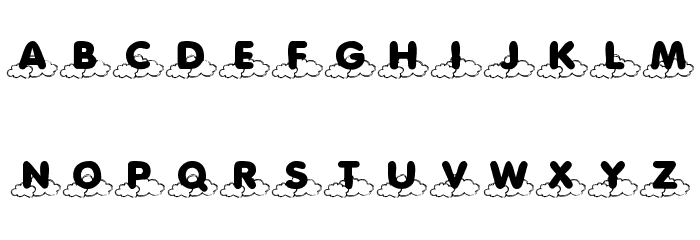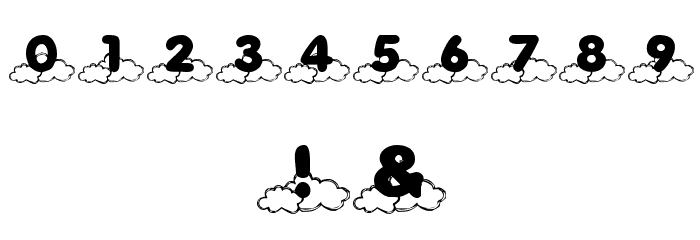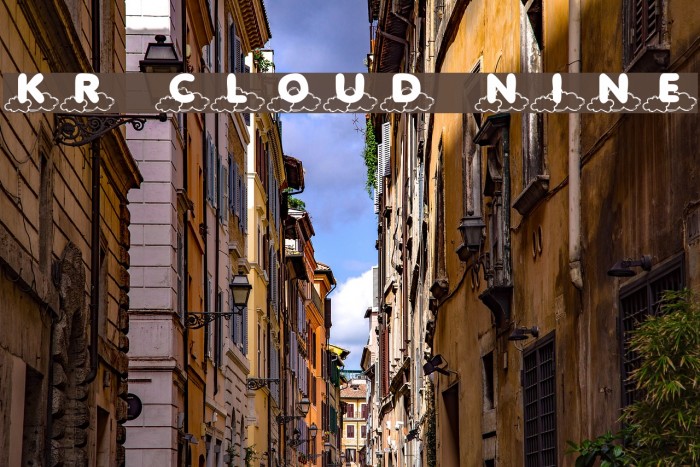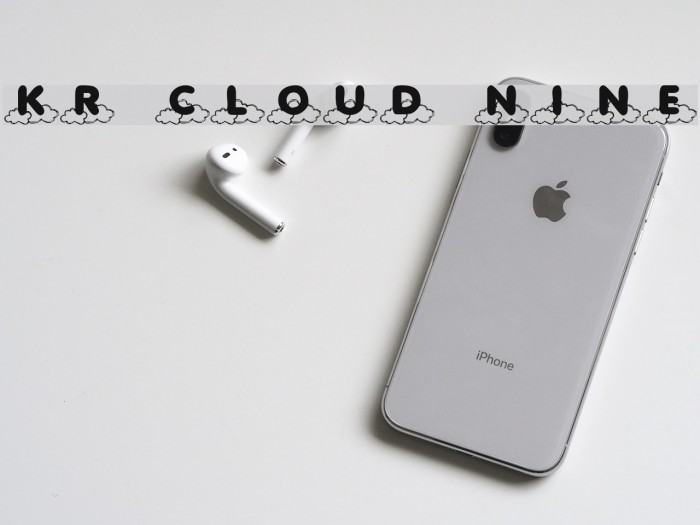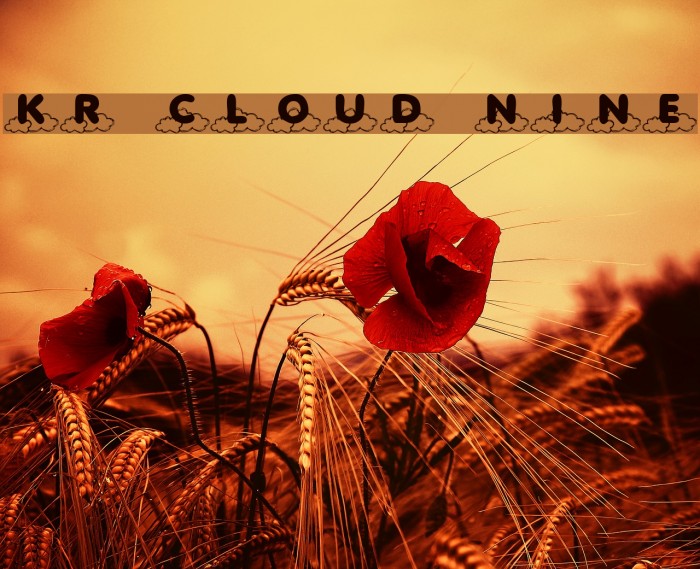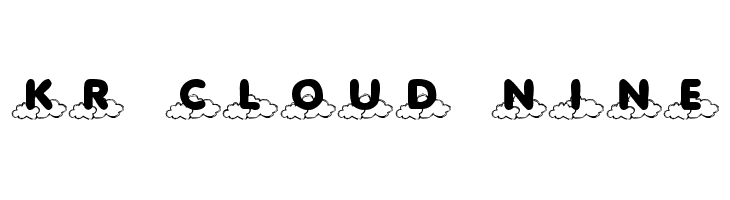
KR Cloud Nine Font
This playful and whimsical font features bold, rounded characters that appear to be floating on fluffy clouds. Each letter and number is perched atop a cloud, giving the impression of lightness and fun. The characters are evenly spaced, with a consistent thickness that maintains readability while adding a touch of charm. The font's unique design makes it ideal for projects that require a sense of imagination and creativity. Its bold style ensures that it stands out, making it perfect for eye-catching headlines or playful branding.
A whimsical, cloud-themed font with bold, rounded characters.
- Proposed Projects: Ideal for children's books, playful branding, party invitations, and creative posters.
- Overall Style: Playful